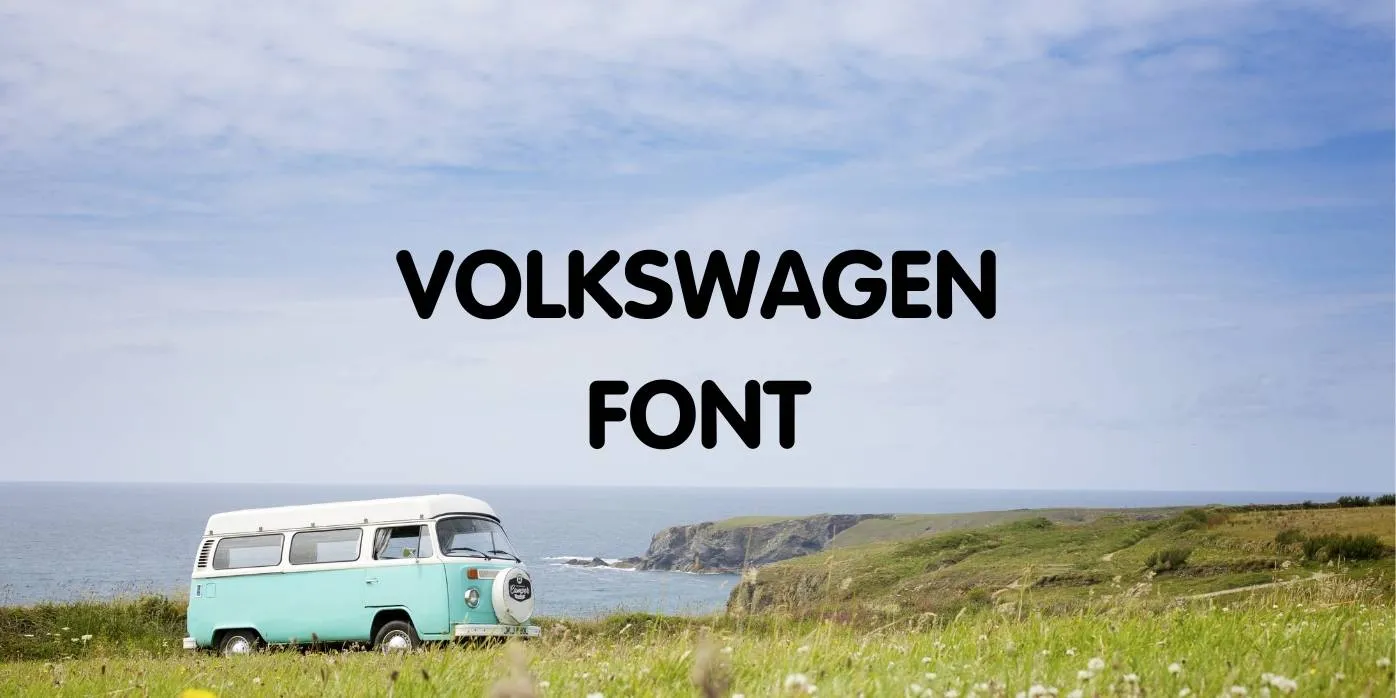
Volkswagen Font
Volkswagen Font Family is inspired by a massive and well-known automobile agency. This typeface has fourteen patterns and changed into published with the beneficial useful resource of Softmaker. These Sans Serif typefaces have superior all at once within the 2nd 1/2 of the twentieth century because of trends in the era and the surrender of the large use of steel type. This is a classic Volkswagen font family.
The font family contains uppercase and lowercase letters, Numbers, Symbols, etc. It can support many languages and It is very popular for being used in a famous and old Vehicle brand in the past age. The style of characters contains Light, Heavy, Medium, Bold, Bold Italic, Demi Bold, Demi Bold Italic, Extra Bold Italic, Light Italic, Medium Italic, Regular Italic, etc.